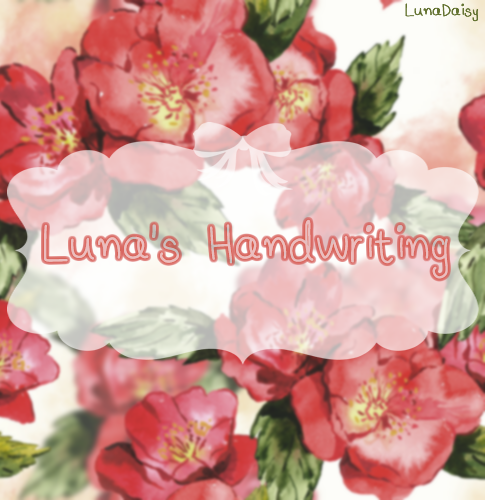
Font name: | Luna's Handwriting |
Author: | Luna Daisy |
Note by Luna Daisy | |
A really cute font with a few of my doodles in it, hope you guys will like it as much as I do. Every download shows your support to me and I will continue to create more fonts. Thank you! |